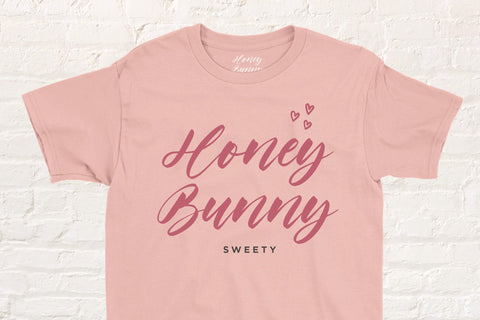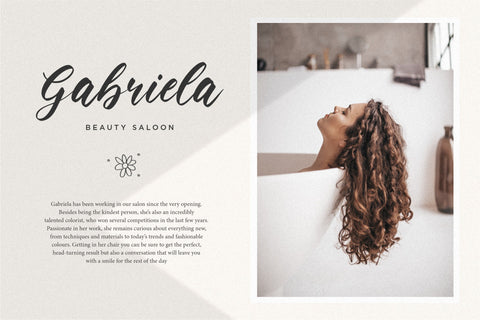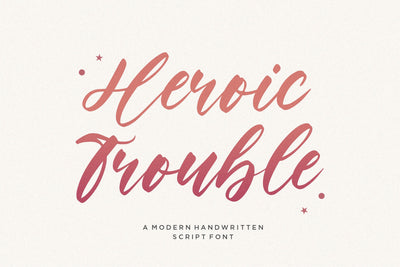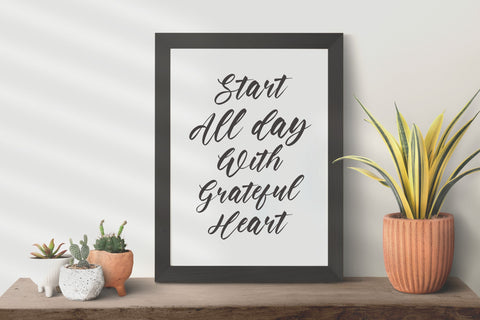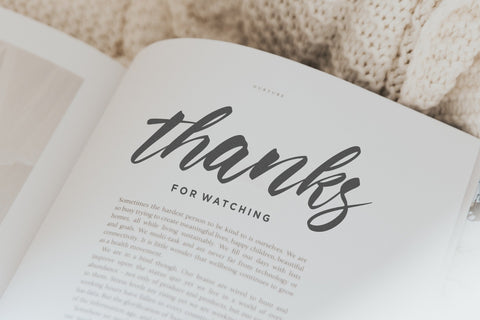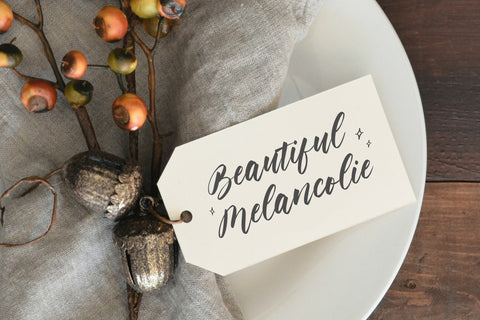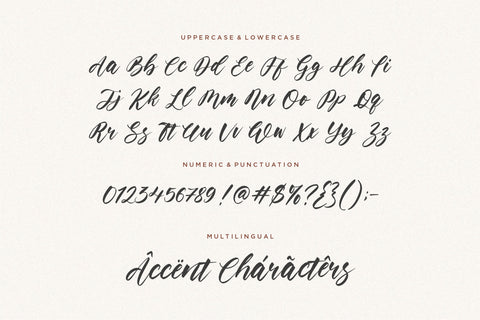
Heroic Trouble Modern Handwritten Script Font
Heroic Trouble is a Modern Handwritten Script Font.
Heroic Trouble is a modern handwritten script font. Heroic Trouble Monoline is a thin-lettered and refined script font that emanates sophistication and elegance. Its stylish alternates and ligatures make this font the perfect match for any project. You can use this feminine font for clothes, fashion, magazines, wedding invitations, and cards.